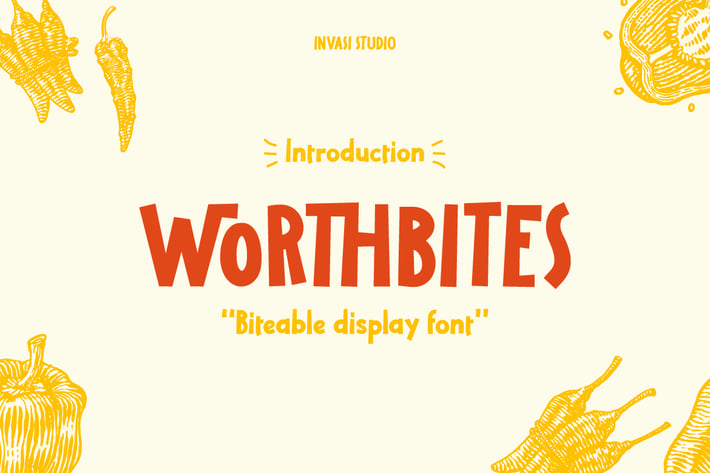
Worthbites |Display Font
WORTHBITES is an uneven, unexpected, playful, and Display font special for food display, that puts a smile on your projects and will inspire you to create something fun and memorable. WORTHBITES will help you to create special and touching typographical designs for fun or childish projects, It is perfect for logo, headings, flyers, greeting cards, product packaging, book cover, printed quotes, logotype, apparel design, album covers.
Multilanguage
Ligatures
Alternates